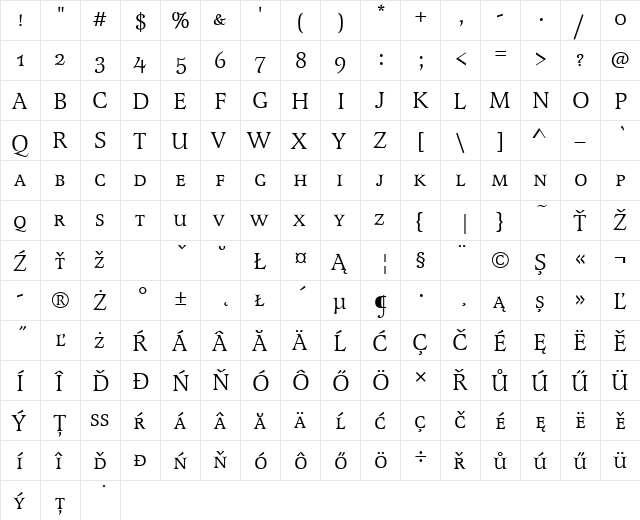
LatienneSCTEEReg Regular Font Preview
LatienneSCTEEReg Regular
Design Context for LatienneSCTEEReg Typeface
LatienneSCTEEReg is a composed and adaptable typeface that performs quietly and consistently across a wide range of design contexts.